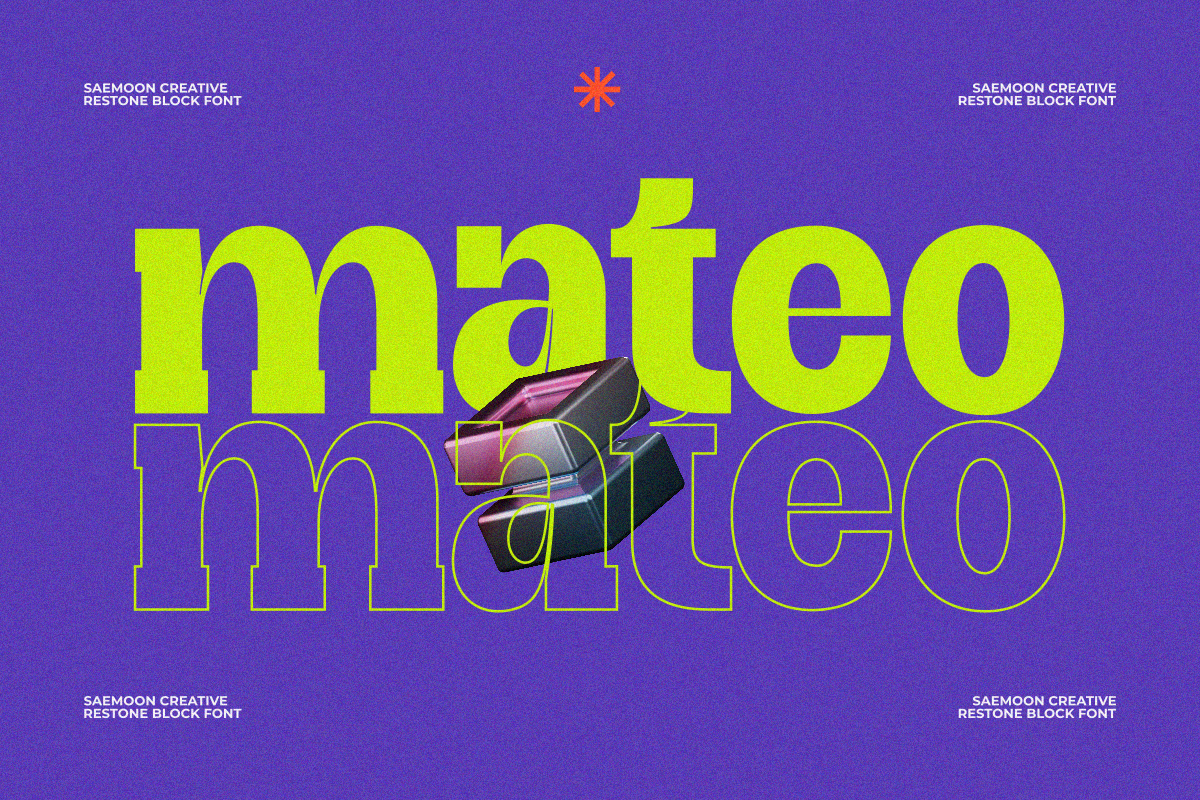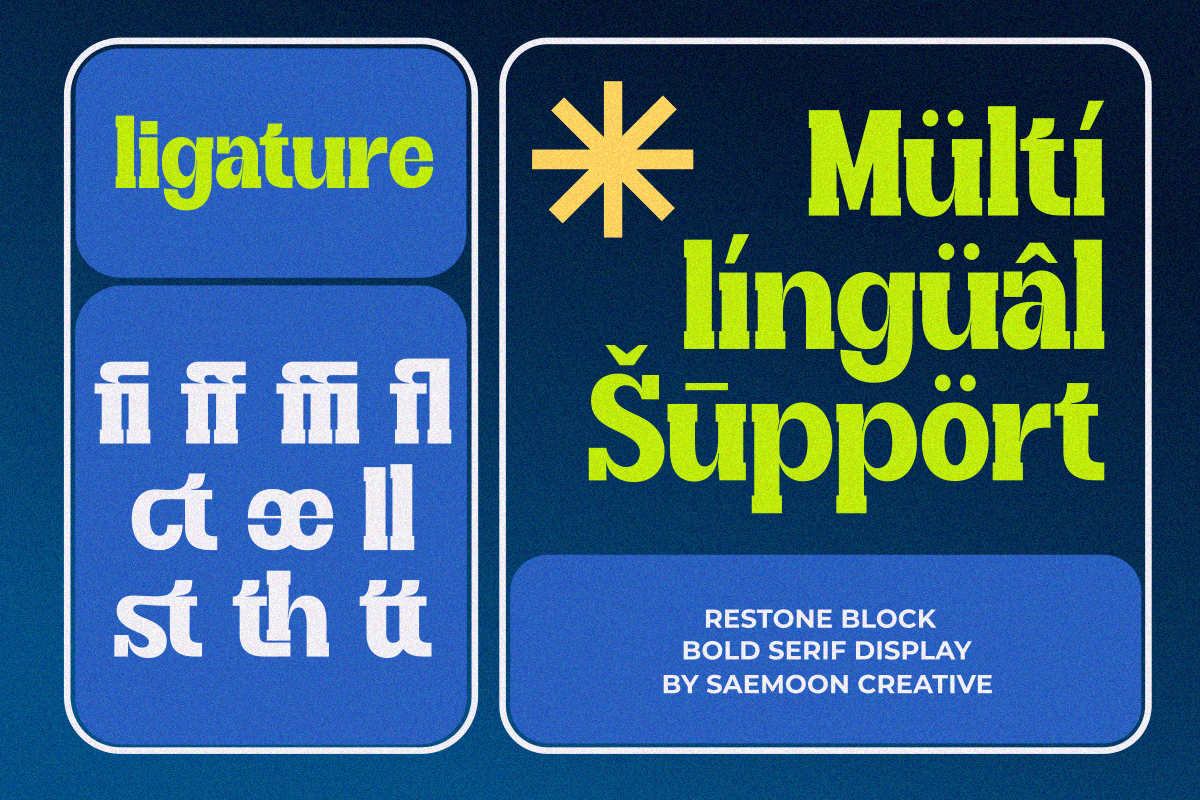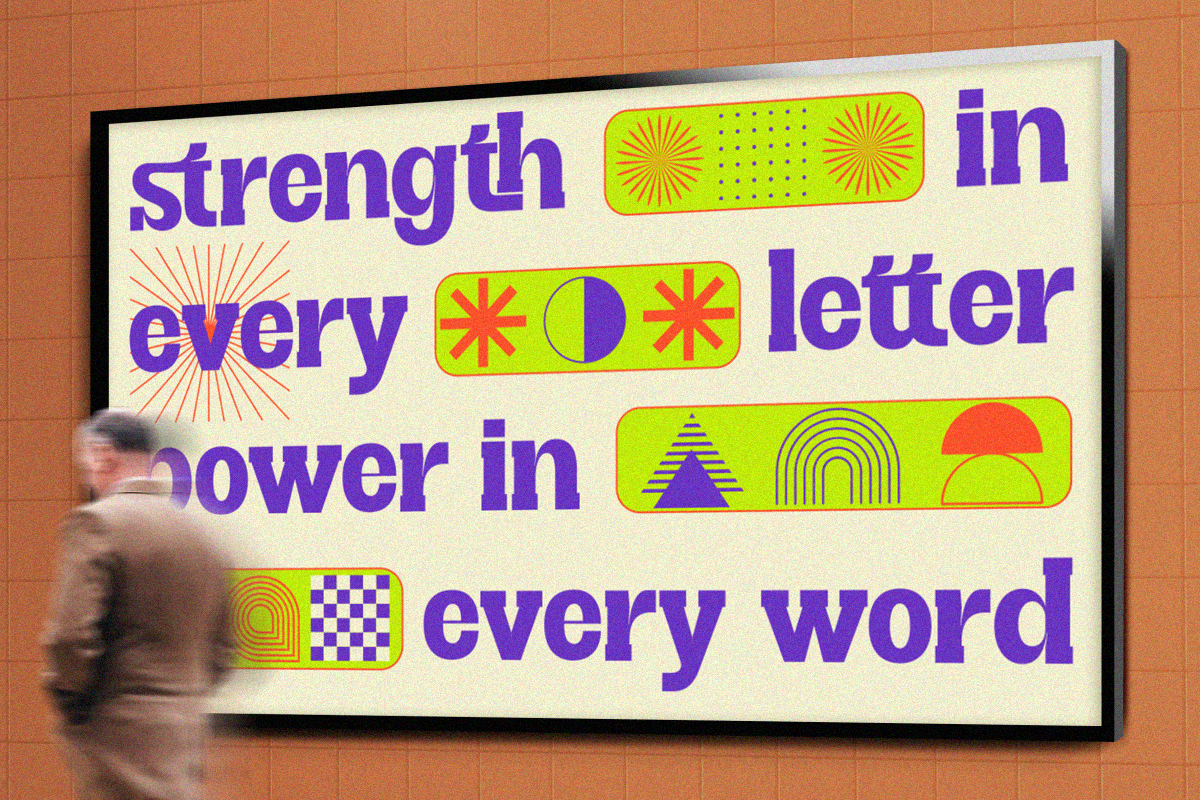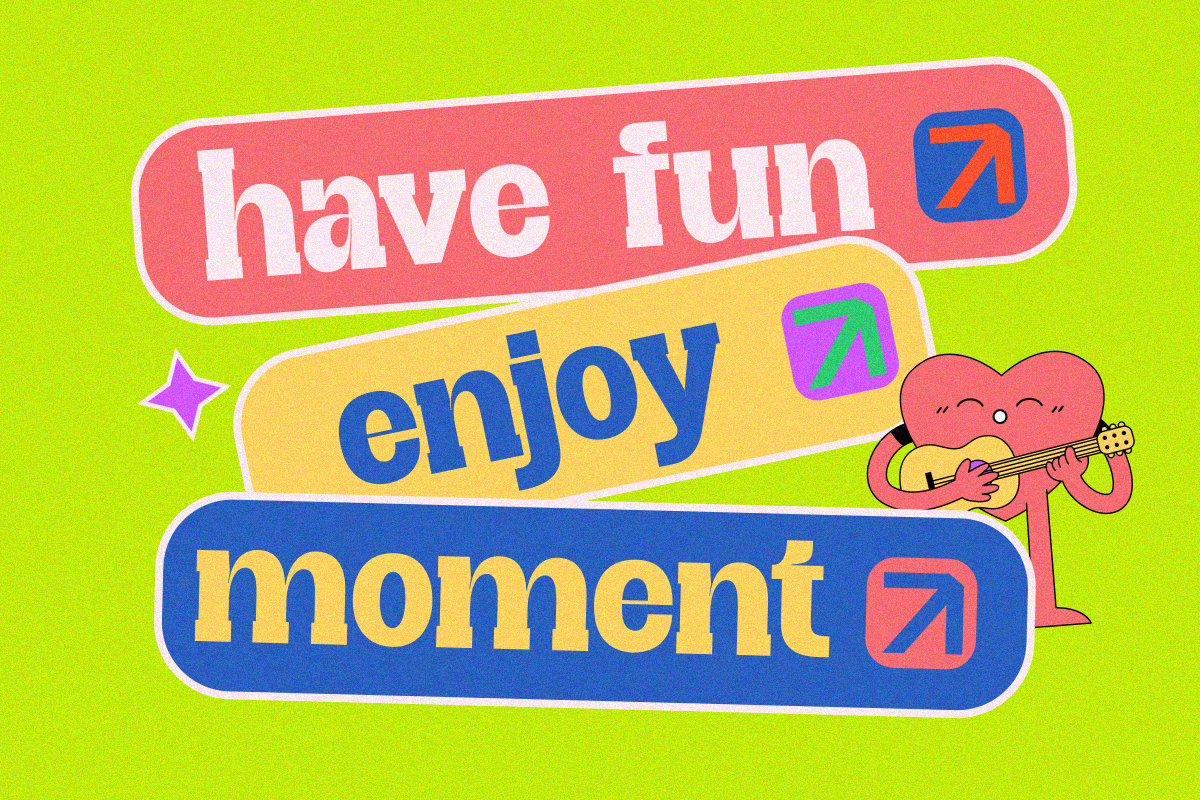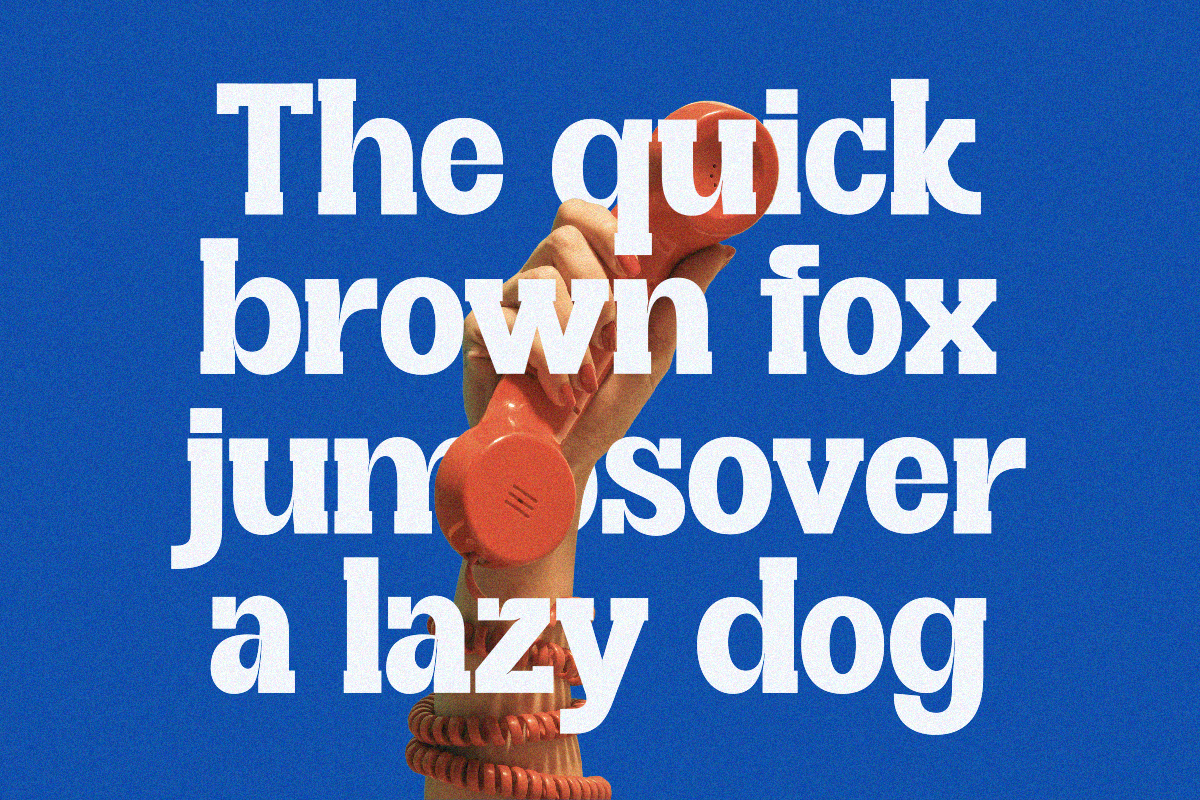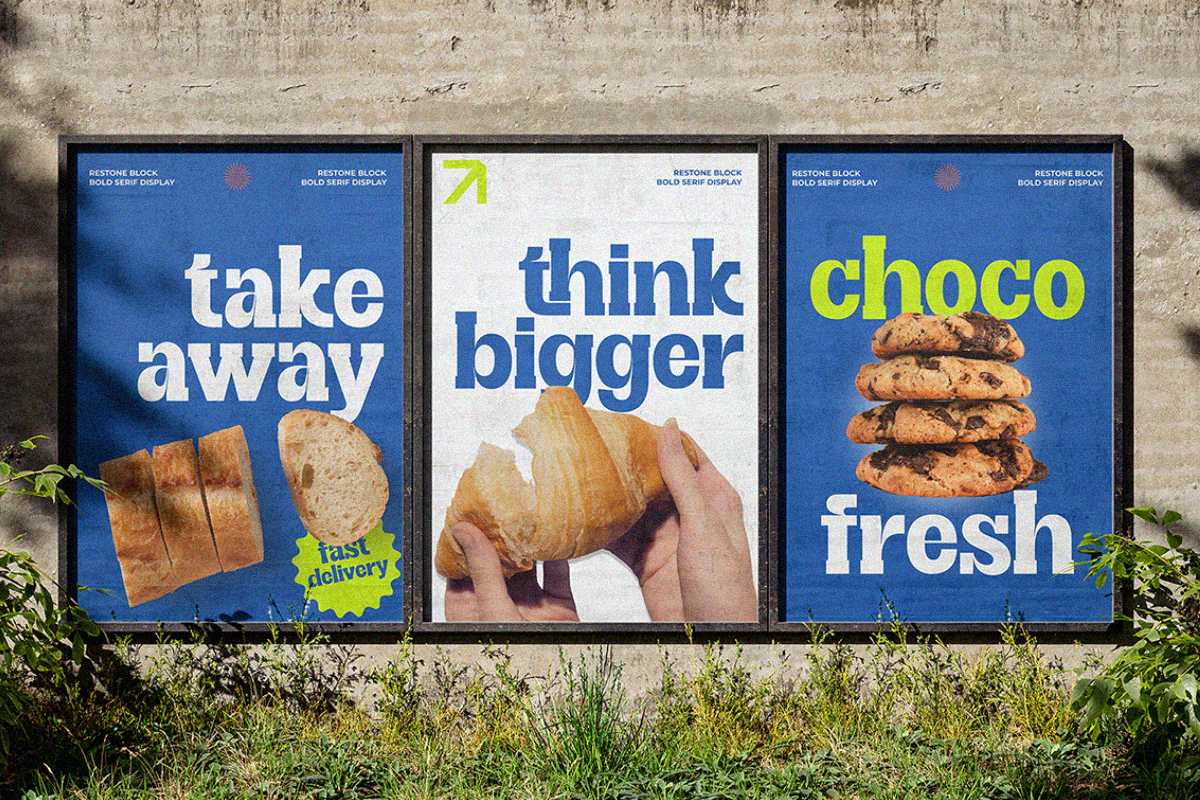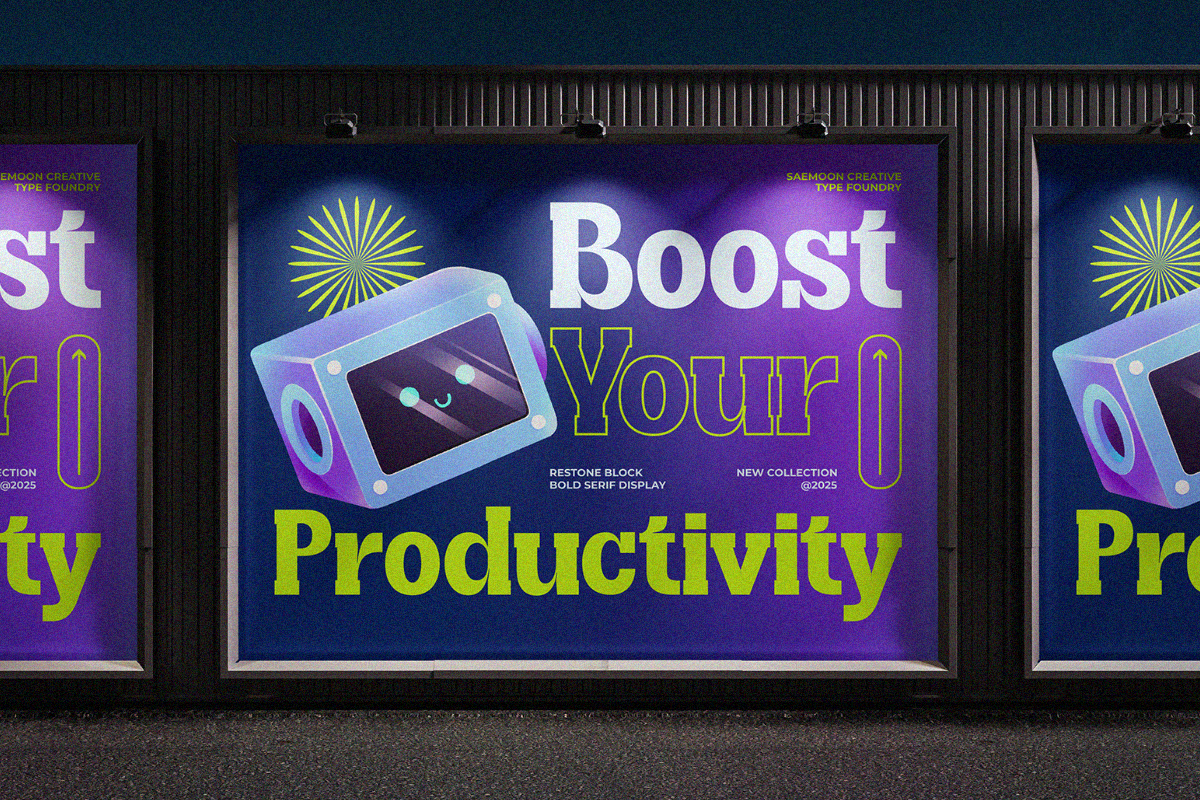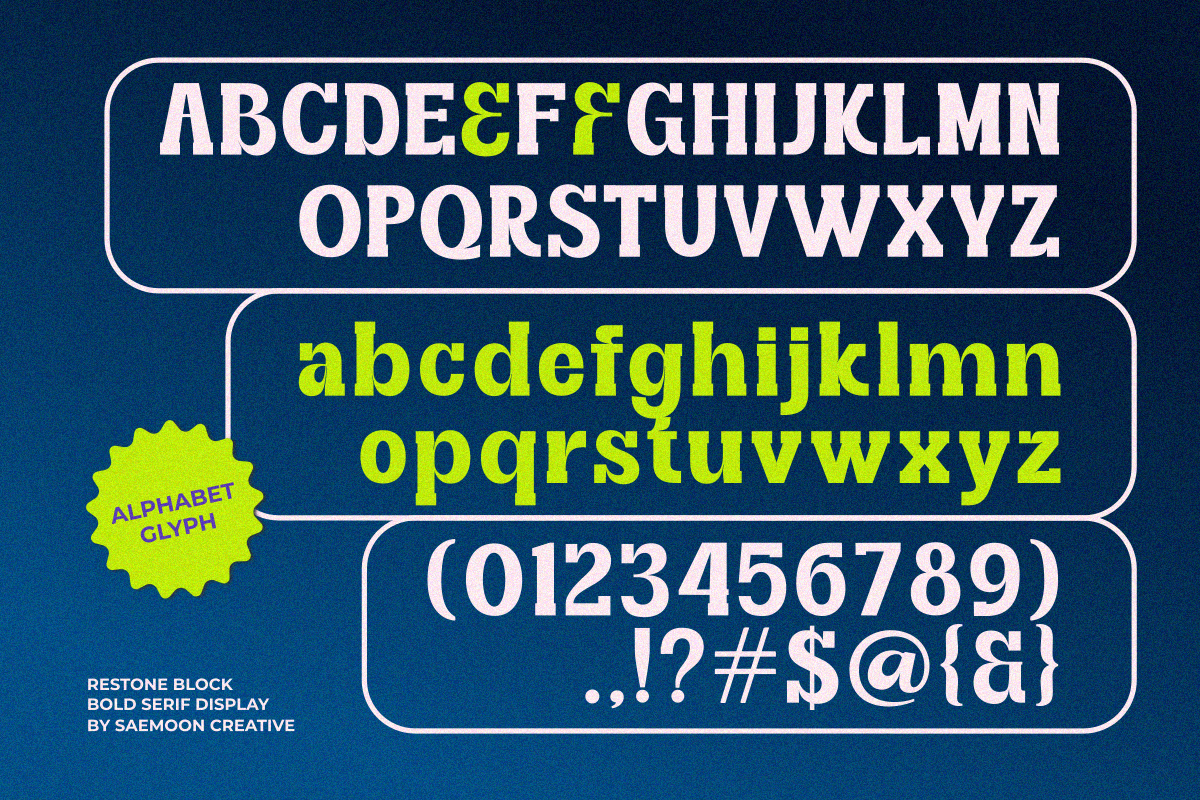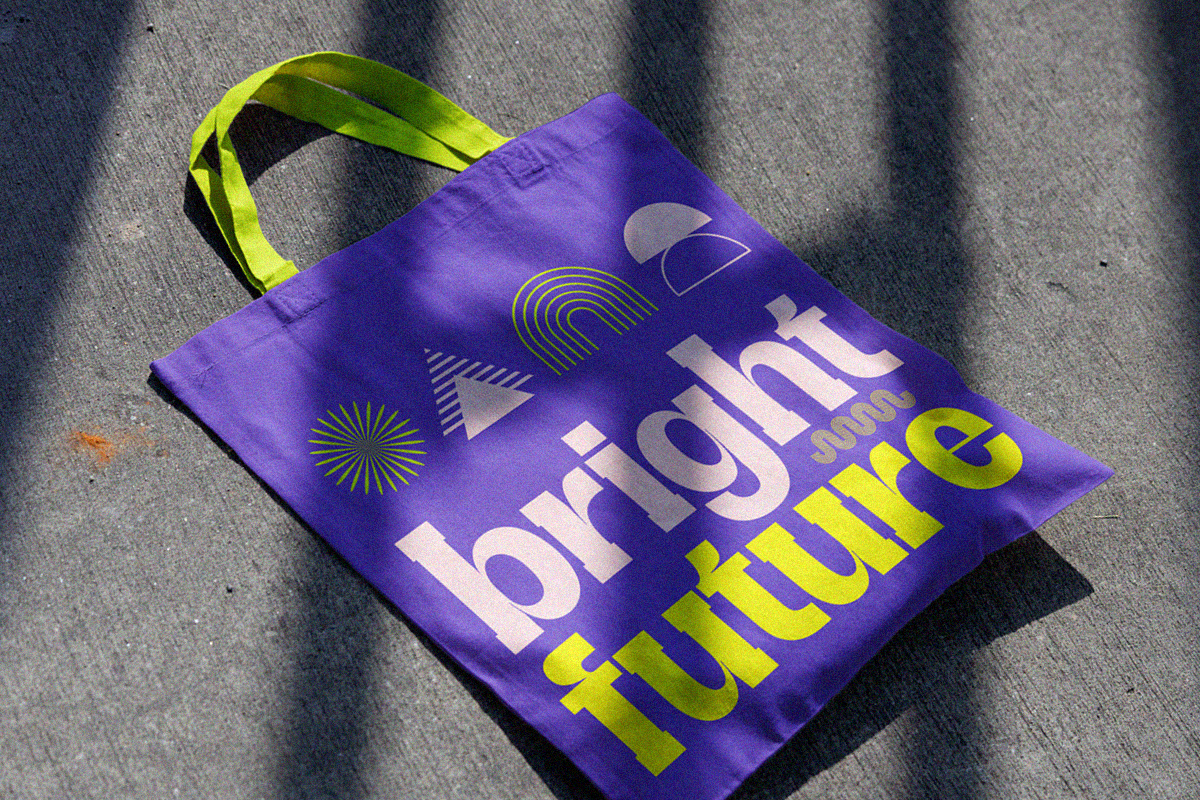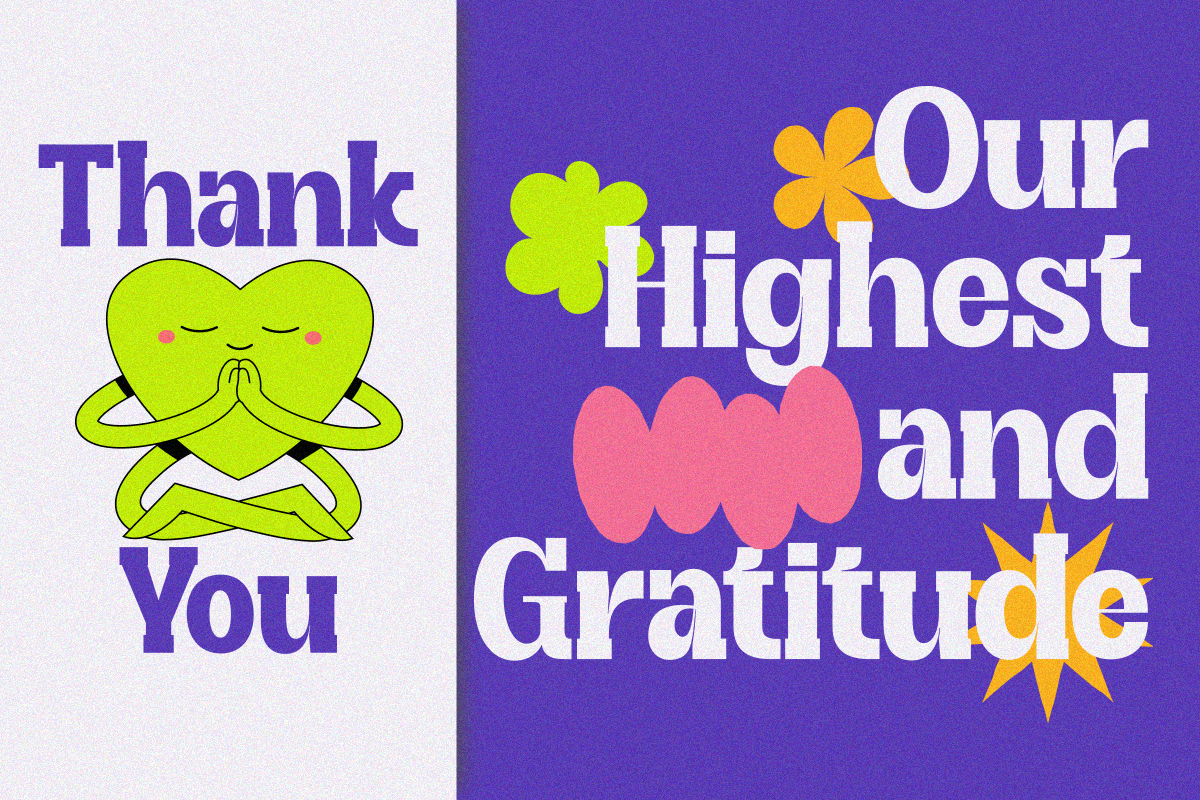
Restone Block
Restone Block – Bold Serif Display Typeface
Restone Block is a bold serif display font with a strong and confident personality. Designed with thick strokes and clean geometric shapes, it perfectly combines classic serif elegance with a modern blocky structure. Each character is crafted to stand out, making it ideal for impactful headlines, logos, posters, and branding projects.
This typeface brings a dynamic visual rhythm, offering both power and style in every letter. Whether you’re working on futuristic layouts, retro posters, or bold editorial designs, Restone Block delivers a striking impression that captures attention instantly.
381 Glyphs Included
Perfect for: Posters, Branding, Logos, Editorial Titles, Packaging, and Creative Typography Projects.